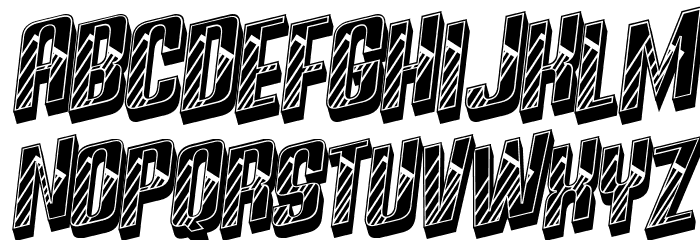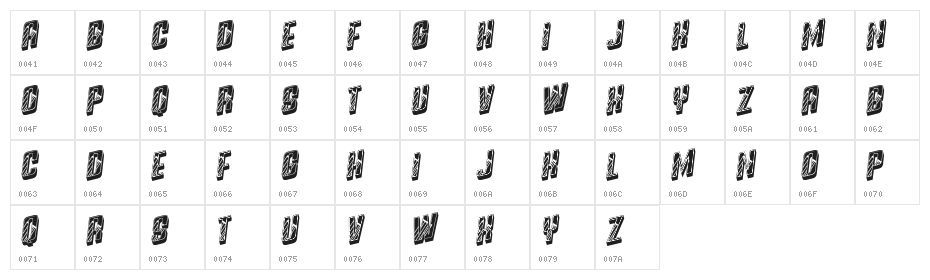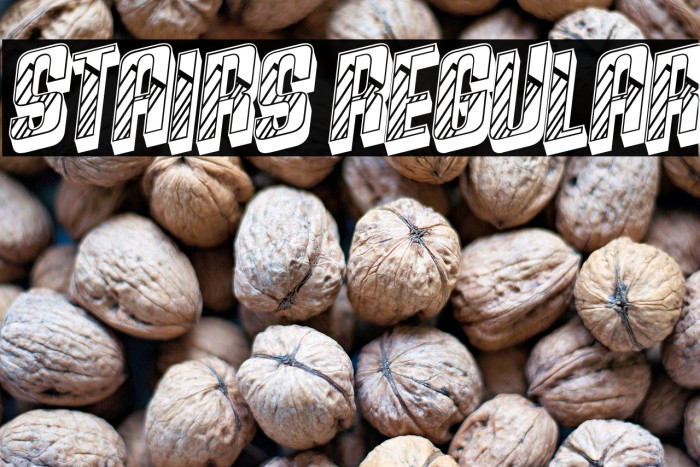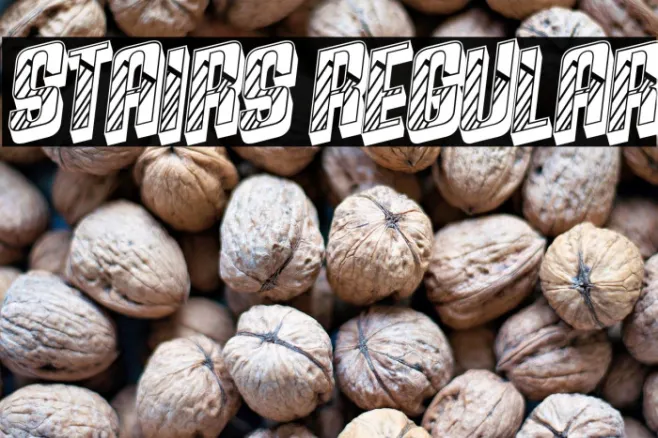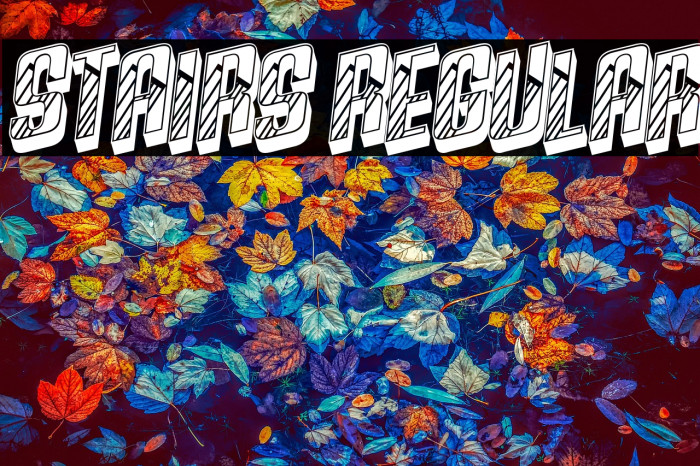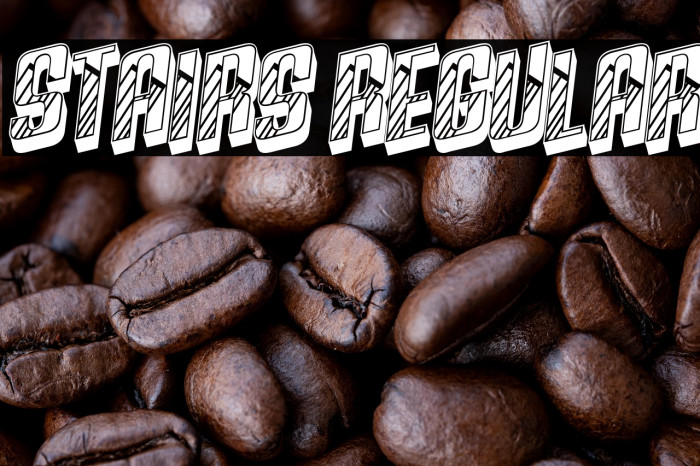
Stairs Regular Font
Stairs Regular Description
This font features a bold, three-dimensional design with a distinct shadow effect that gives each character a sense of depth and movement. The letters are uppercase, with a slanted, italicized style that adds dynamism and energy. The internal lines within each character create a striped pattern, enhancing the visual interest and making it stand out. The overall appearance is modern and eye-catching, suitable for projects that require a strong visual impact.
| Proposed Projects | Ideal for posters, headlines, logos, and branding materials that require a bold and dynamic look. |